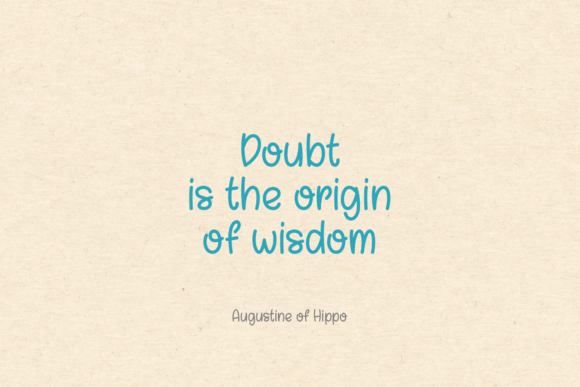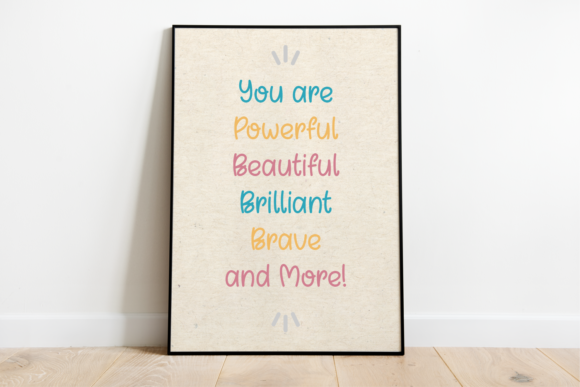
Introducing Feel Good Font: The Sweet and Whimsical Script Font to Elevate Your Designs
Are you tired of using the same old fonts in your design projects? Do you want to add a touch of whimsy and playfulness to your creations? Look no further than Feel Good Font, a sweet and trendy script font that’s sure to bring a smile to your face. In this article, we’ll dive into the features and benefits of Feel Good Font, and explore how you can use it to take your designs to the next level.
What is Feel Good Font?
Feel Good Font is a beautiful script font that’s designed to add a touch of magic to your designs. Featuring characters that dance along the baseline, this font is the perfect choice for designers and crafters who want to create something truly special. Whether you’re working on a branding project, a social media graphic, or a craft project, Feel Good Font is sure to bring a sense of joy and playfulness to your work.
Key Features of Feel Good Font
So what makes Feel Good Font so special? Here are just a few of its key features:
- Whimsical design: Feel Good Font features characters that dance along the baseline, giving it a playful and whimsical feel.
- Sweet and trendy: This font is perfect for designers and crafters who want to create something that’s both sweet and on-trend.
- Script font: Feel Good Font is a script font, making it perfect for adding a touch of elegance and sophistication to your designs.
- Easy to read: Despite its playful design, Feel Good Font is easy to read, making it perfect for use in a variety of design projects.
How to Use Feel Good Font in Your Designs
So how can you use Feel Good Font in your designs? Here are a few ideas to get you started:
- Branding projects: Use Feel Good Font to add a touch of whimsy and playfulness to your branding projects, such as logos, business cards, and letterheads.
- Social media graphics: Add a splash of color and personality to your social media graphics with Feel Good Font.
- Craft projects: Use Feel Good Font to add a personal touch to your craft projects, such as handmade cards, gift tags, and scrapbook pages.
- Wedding and party decor: Feel Good Font is perfect for use in wedding and party decor, such as invitations, signage, and decorations.
Tips for Getting the Most Out of Feel Good Font
Here are a few tips for getting the most out of Feel Good Font:
- Experiment with colors: Feel Good Font looks great in a variety of colors, so don’t be afraid to experiment and find the perfect hue for your design.
- Pair with other fonts: Feel Good Font pairs well with a variety of other fonts, so try pairing it with a bold font for a striking contrast.
- Use it sparingly: While Feel Good Font is perfect for adding a touch of whimsy to your designs, it’s best used sparingly to avoid overwhelming the viewer.
| Font Name | Feel Good Font |
| Author | Rizkky (7NTypes) |
In conclusion, Feel Good Font is a sweet and whimsical script font that’s perfect for designers and crafters who want to add a touch of magic to their designs. With its playful design, sweet and trendy style, and ease of use, Feel Good Font is sure to become a favorite in your font collection. So why not give it a try and see how it can elevate your designs to the next level?
Whether you’re a seasoned designer or a crafty DIY enthusiast, Feel Good Font is sure to bring a smile to your face and a touch of whimsy to your creations. So go ahead, get creative, and have fun with Feel Good Font!